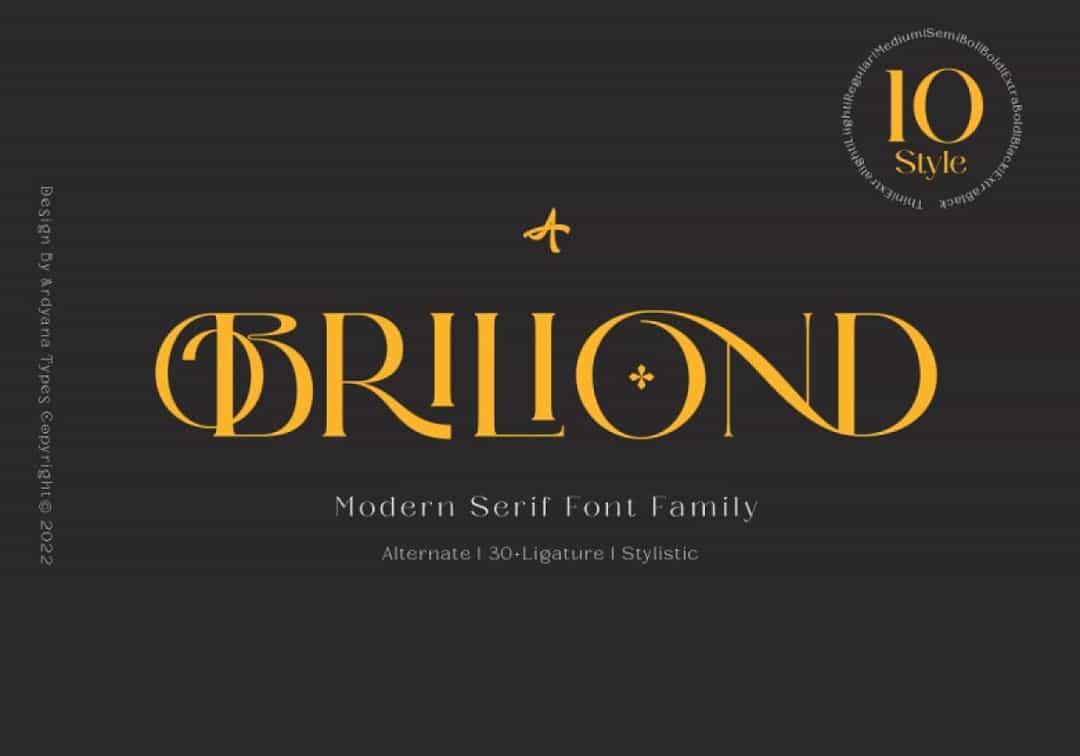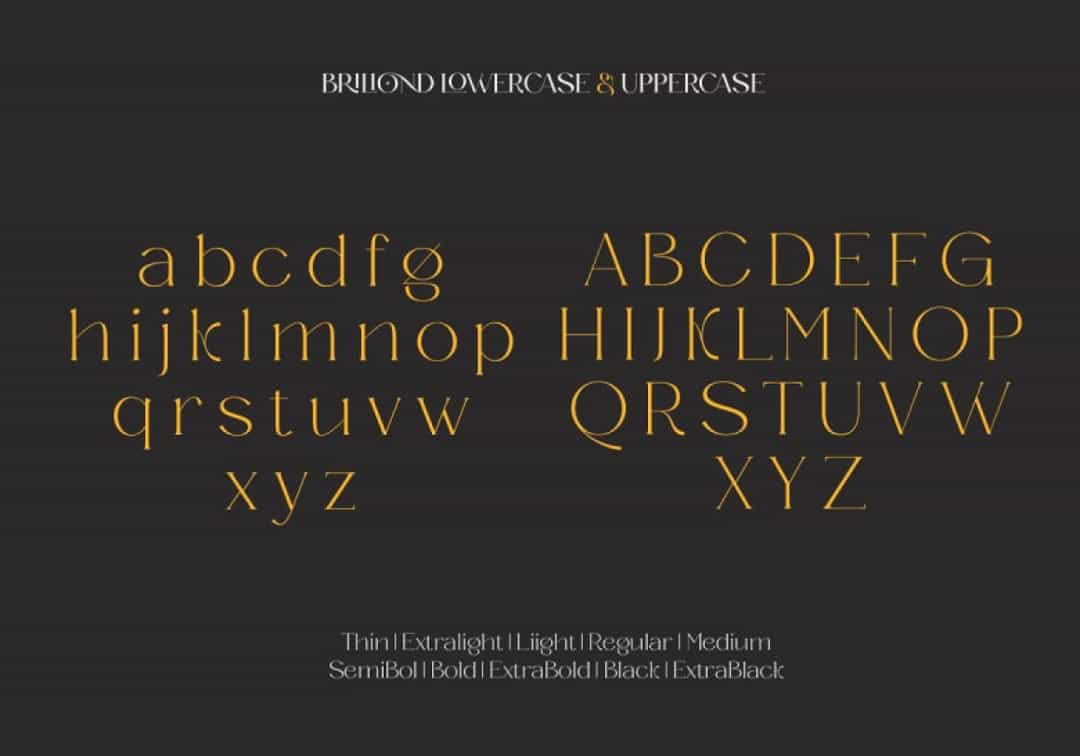
Discover Briliond Font, part of the Serif collection—a versatile and unique font perfect for adding a personal touch to your projects. Download it for free and enjoy crafting designs with style, from invitations to social media posts. This font is available exclusively for personal use, giving you the freedom to create without limits. Unlock your creativity with Briliond Font today!
Briliond is an elegant design featuring serif-type font taglines that are modern and sophisticated, complete with 10 levels of thickness from black to thin for optimal usage. Additionally, this font has professional features to meet any professional need – creating sophisticated logos or projects using this font enables businesses and projects to achieve more impressive branding solutions for use as professional use or project use.